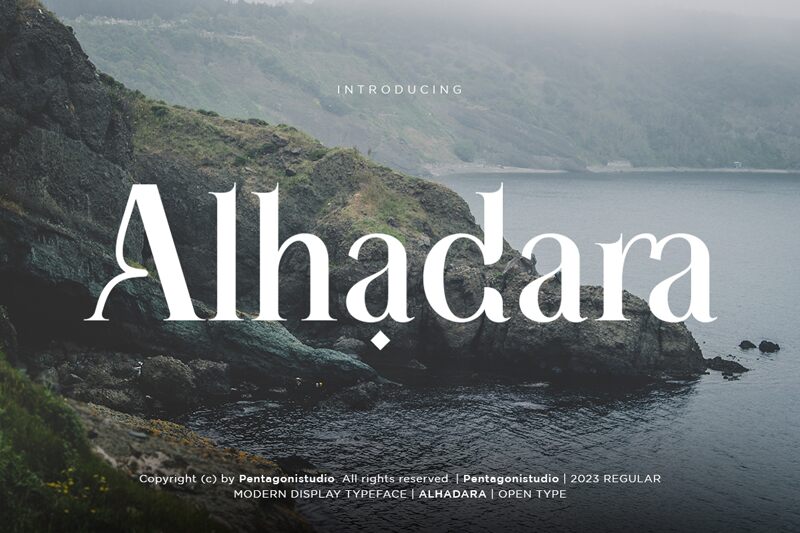
Alhadara font by Pentagonistudio is elegant and highly visible, making it ideal for high-impact copy in magazines and for use in headlines, titles, logotypes on the web, and clothing designs. It had been designed to be used for big text sizes. Alhadara font includes regular and italic style.
Perfectly suitable for creating fashionable designs, such as logo, title, books layout fonts magazine , branding , poster design , music cover , clothes , letterpress printing etc..